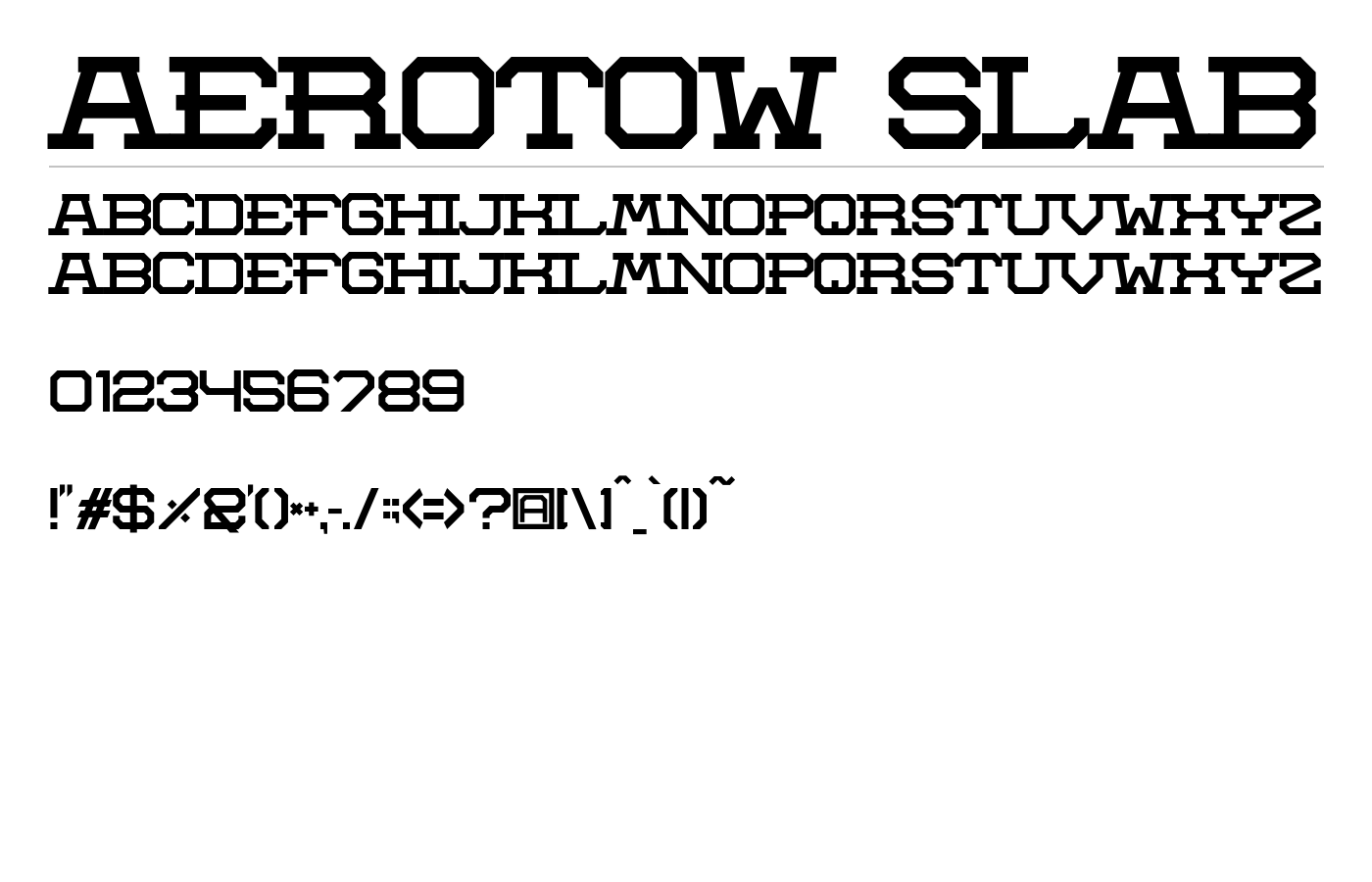
Aerotow Slab is a bold, geometric slab serif font with a sturdy, industrial feel, featuring strong, angular serifs and a slightly condensed width. Its consistent stroke weight and sharp edges give it a technical and mechanical character, making it ideal for headlines, logos, and designs that require a modern yet robust appearance. This font works well for branding in tech, sports, or vintage machinery contexts where clarity and impact are key.
Aerotow Font
About Aerotow Font
| Font family | Aerotow Font |
| Category | Slab-serif |
| Designer | LEONARD POSAVEC - CREATIVE TOUCAN LTD - LEOSUPPLY CO |